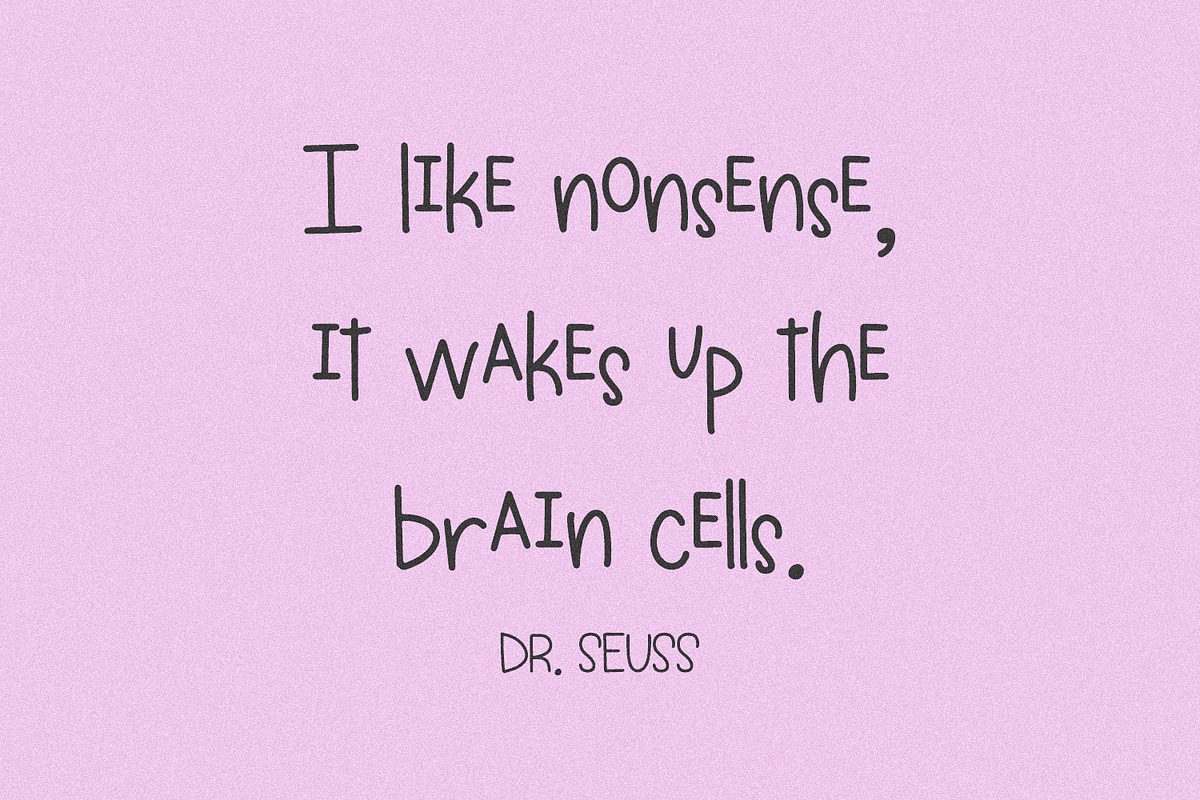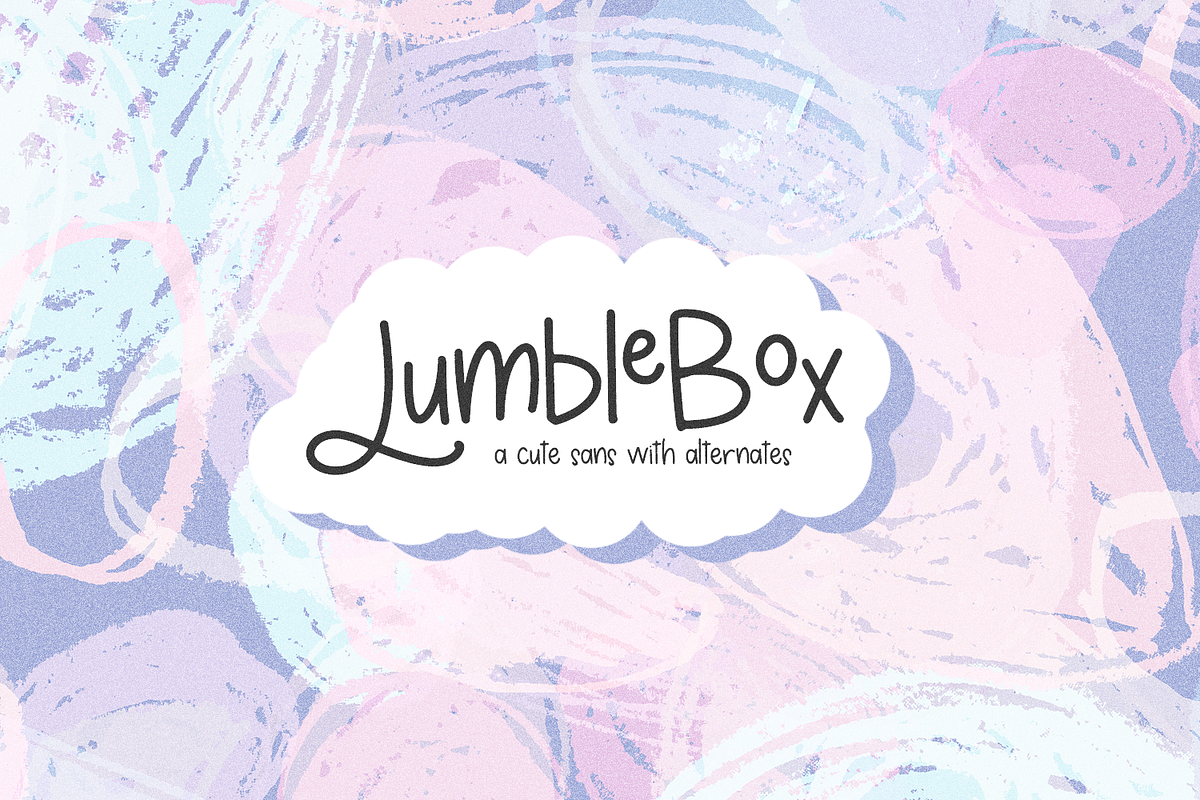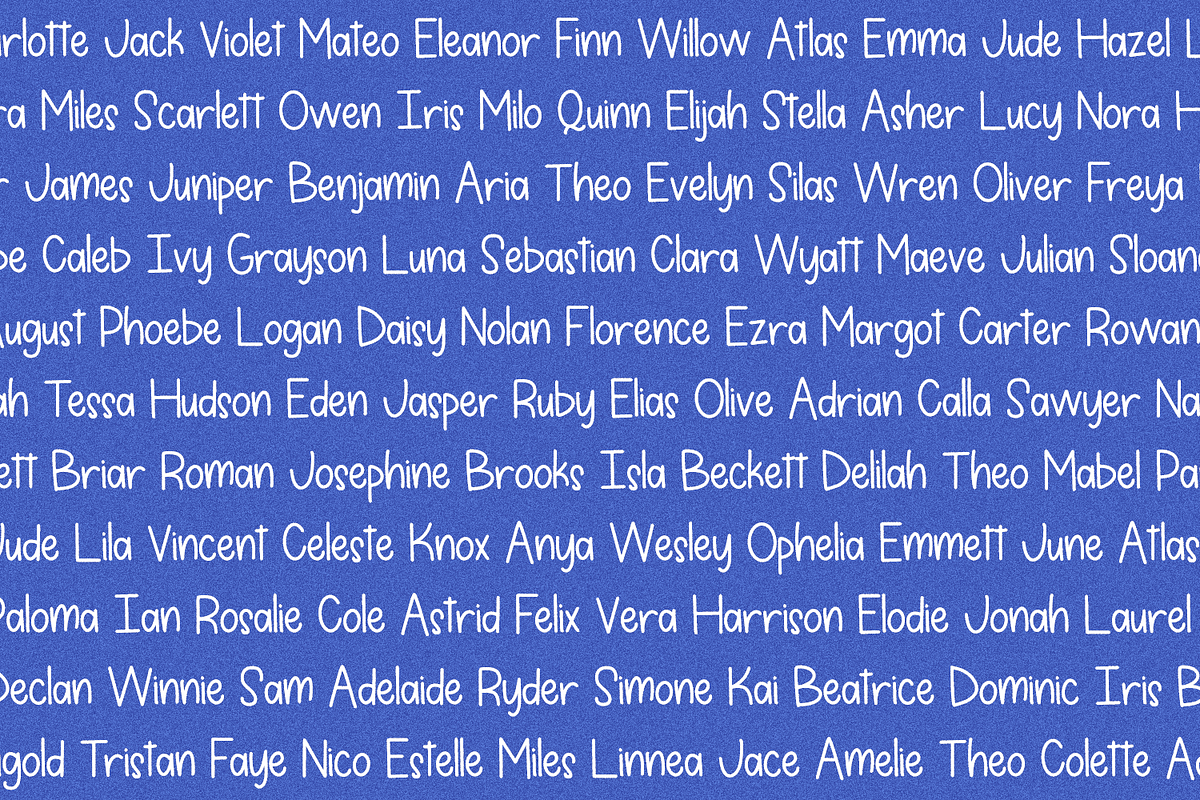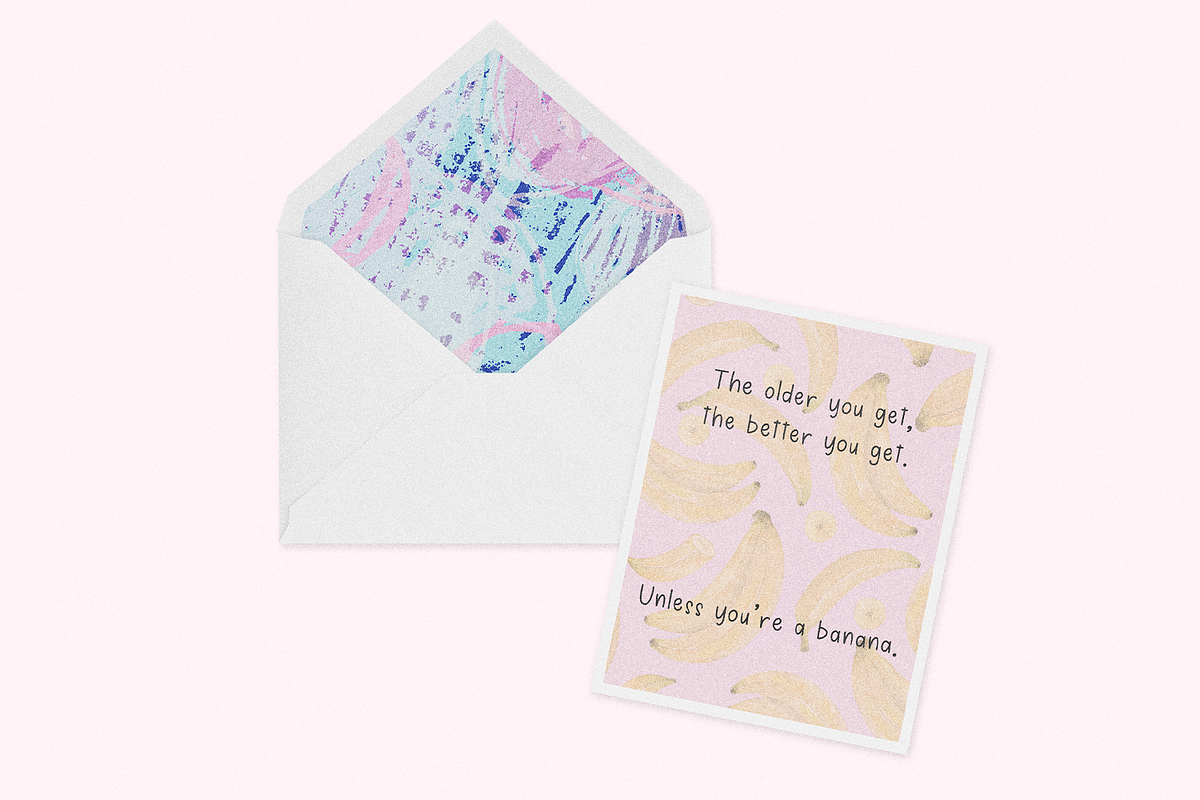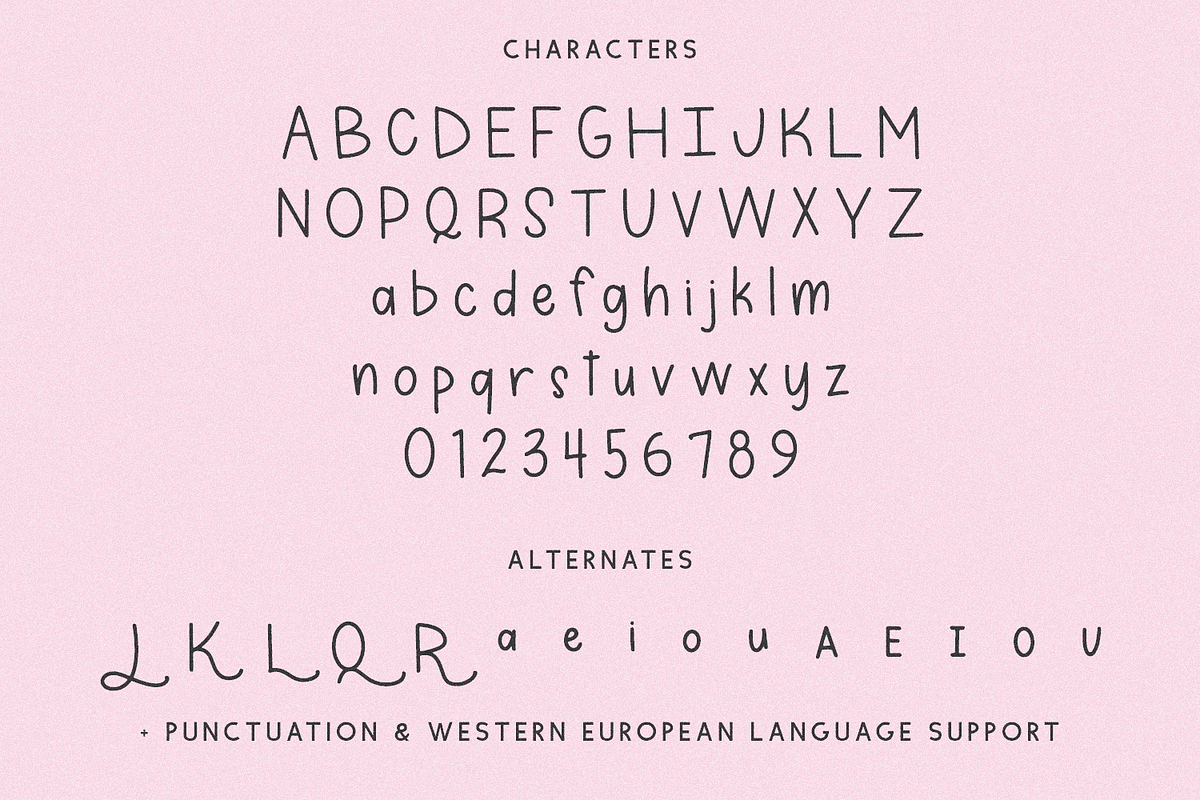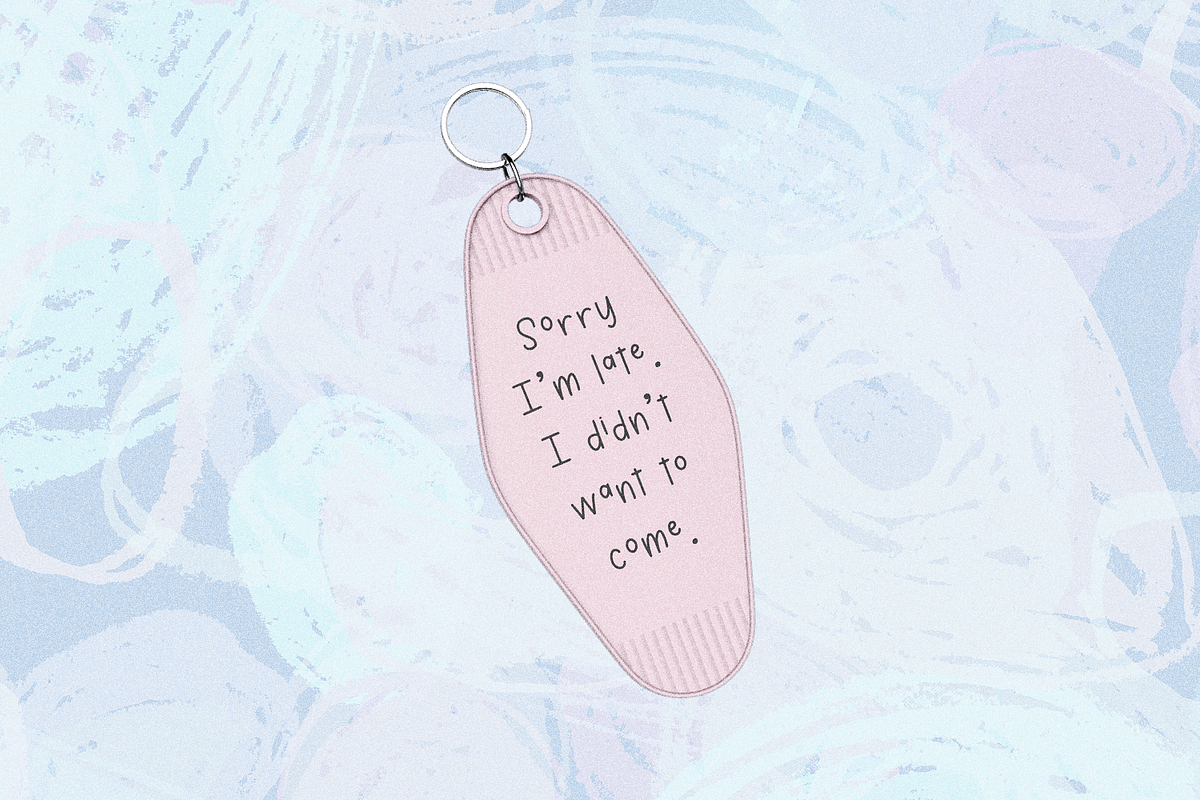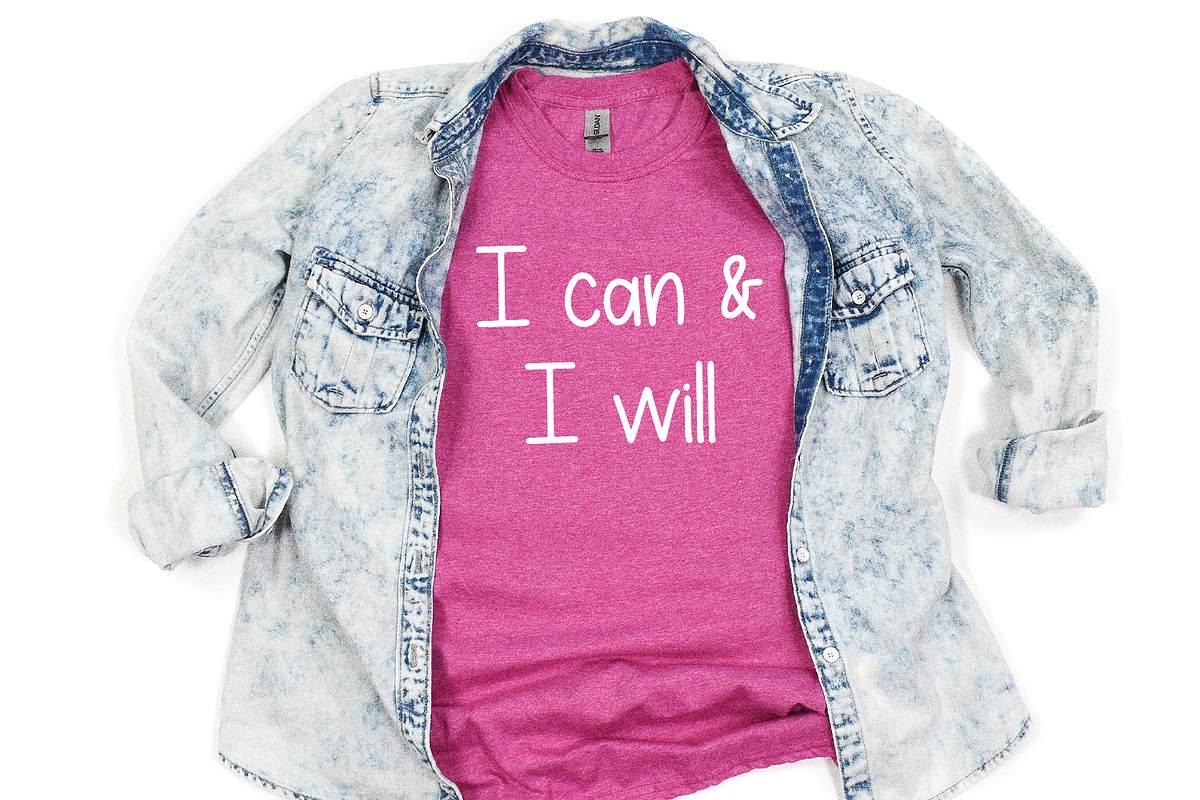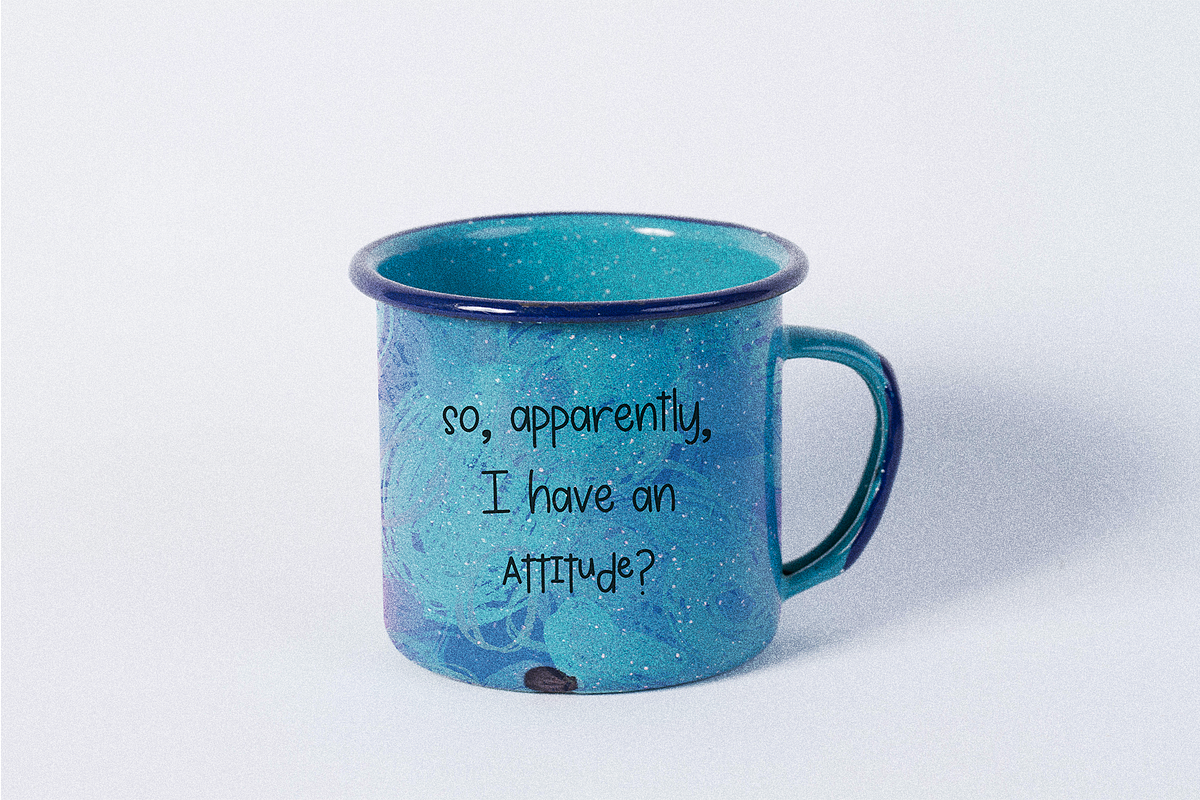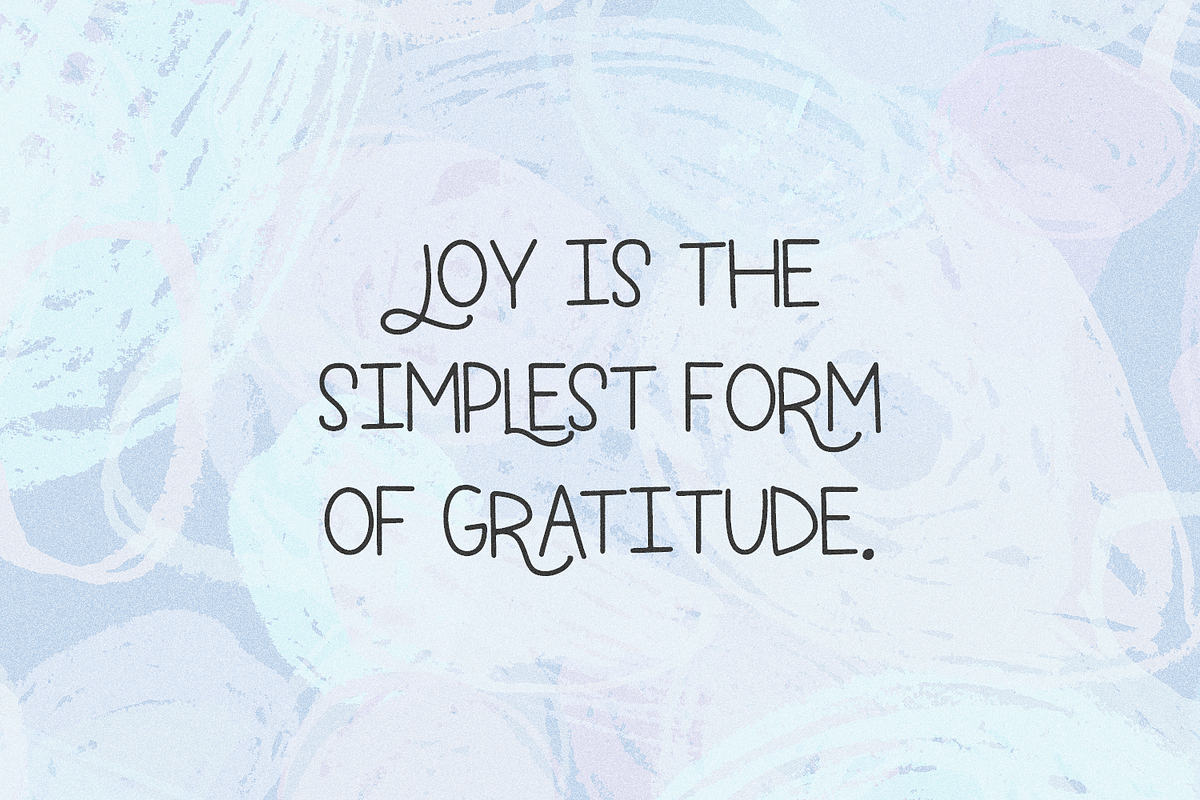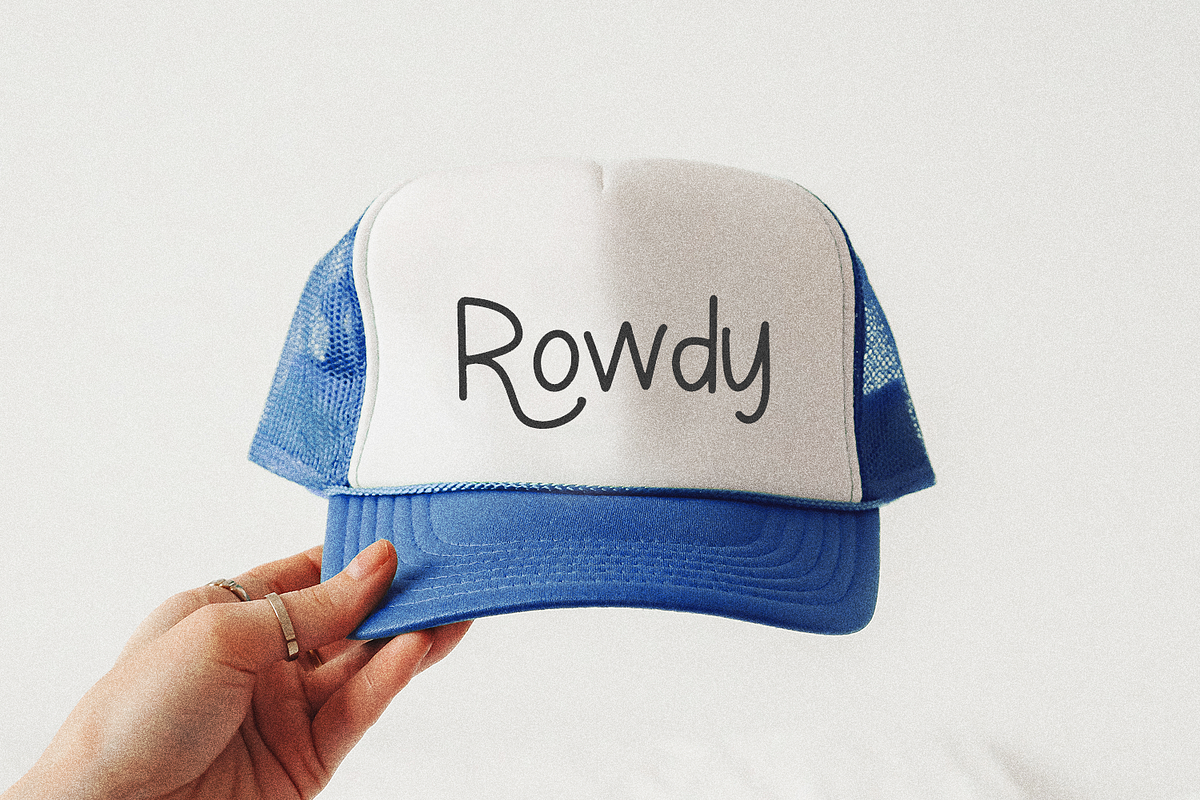
Jumblebox Sans
Jumblebox Sans is a thin, neat font. Some alternate characters are included - these lowercase alternates are positioned above the baseline to create a bouncy look & feel. Additionally, Jumblebox also includes a few uppercase alternates that have an adorable hanging flourish. It would make a great addition to a teacher’s font collection, children’s books, or classroom decor. Jumblebox Sans is also perfect for logos & branding, greeting cards, painted banners, digital planners, note-taking apps, Canva, Cricut projects, Silhouette projects, designing SVG files, laser cutting projects, & more.
Jumblebox Sans includes:
- full upper + lowercase characters
- numbers + punctuation
- 15 alternates - J, K, L, Q, R, a x2, e x2, i x2, o x2, u x2
- Western European language support - English, French, Spanish, Portuguese (Brazil), Portuguese (Portugal), Italian, German (Germany), German (Austria), Dutch, Danish, Swedish, Norwegian (Bokmål and Nynorsk), Finnish, Icelandic, Irish, Welsh